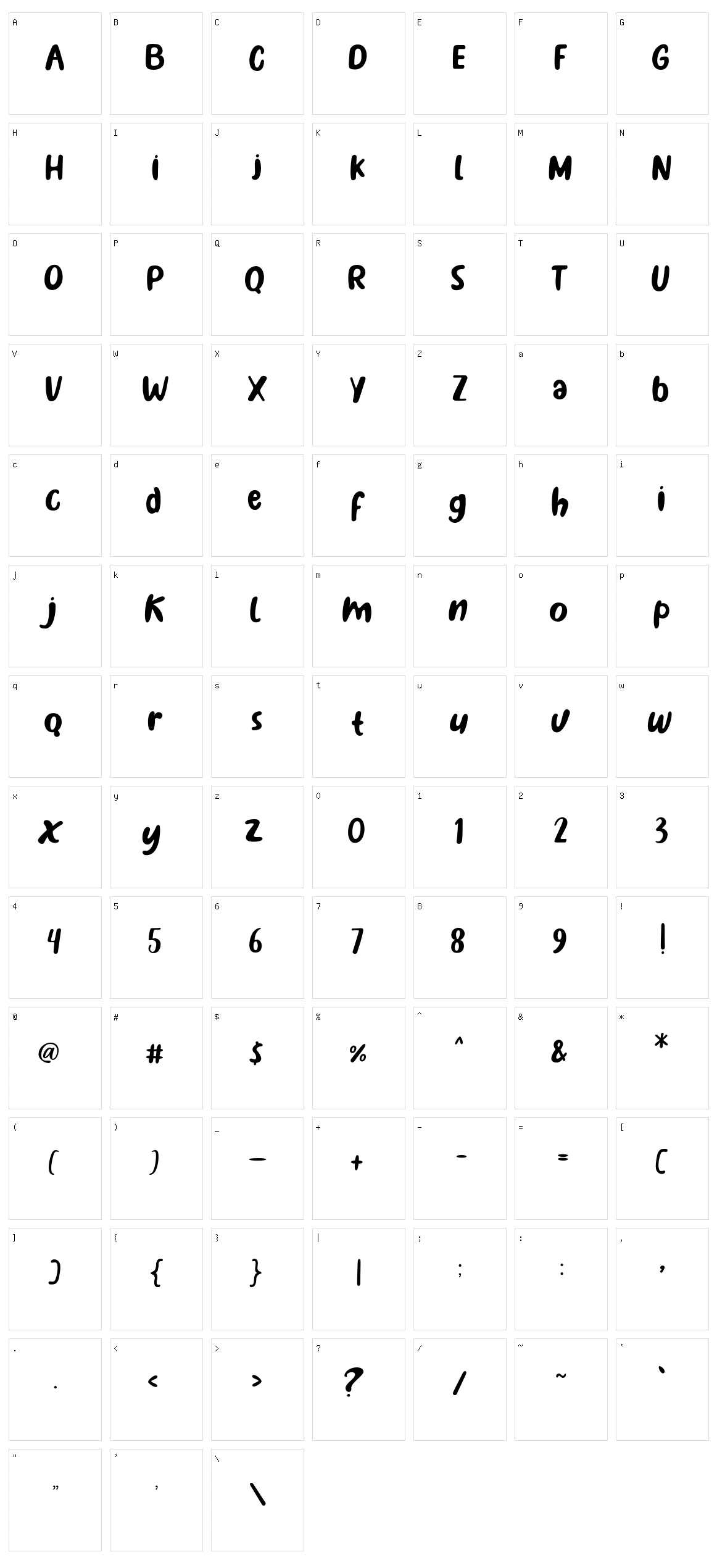
The free font Sakamoto is carefully designed by Gatype, showcasing a thoughtful balance of creativity and usability and falls under the Cartoon font style. When you download the ZIP file, it contains only 50.14 KB of font files, making it lightweight and quick to download. Please review the license details below to understand permitted usage and distribution rights. If license information is not available, we recommend using this font for personal projects only or contacting the author directly for commercial usage permissions.